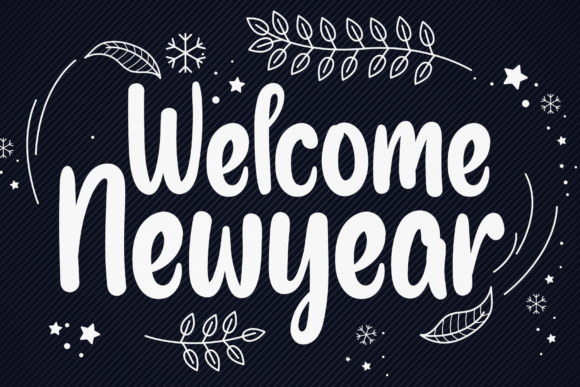
Are you tired of the same old boring fonts for your Gmail signature? Look no further than Welcome Newyear Font, the best font for Gmail signature that will make your emails stand out from the crowd! Created by the talented designers at Misterletter.co, this bold and casual handwritten font is exactly what you need to elevate your communication game.
Welcome Newyear Font is more than just a font – it's a work of art that adds a touch of personality and charm to any design. Its versatile style allows you to create stunning and eye-catching designs that will captivate your audience. Whether you're designing a logo, a website, or even a social media post, this font will bring your ideas to life.
With Welcome Newyear Font, your creativity knows no bounds. Its bold strokes and unique characters make it perfect for adding emphasis and style to your text. Whether you want to make a statement or simply add a touch of elegance, this font has got you covered.
Not only is Welcome Newyear Font visually stunning, but it also evokes emotions. Its handwritten style brings a sense of warmth and authenticity to your designs, making your audience feel a personal connection. Whether you're designing a heartfelt invitation or a heartfelt message, this font will add that extra touch of sentiment.